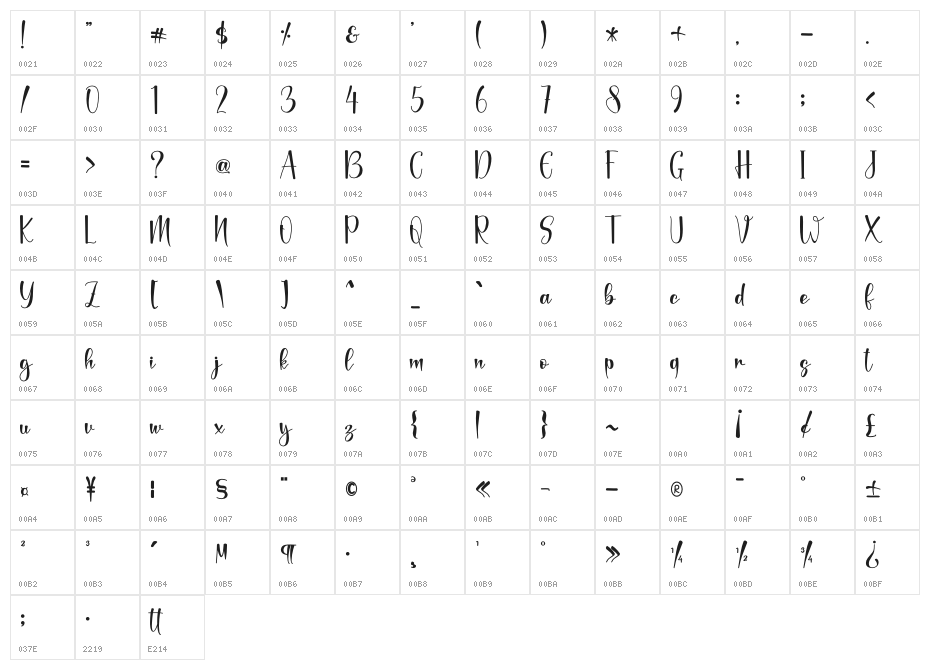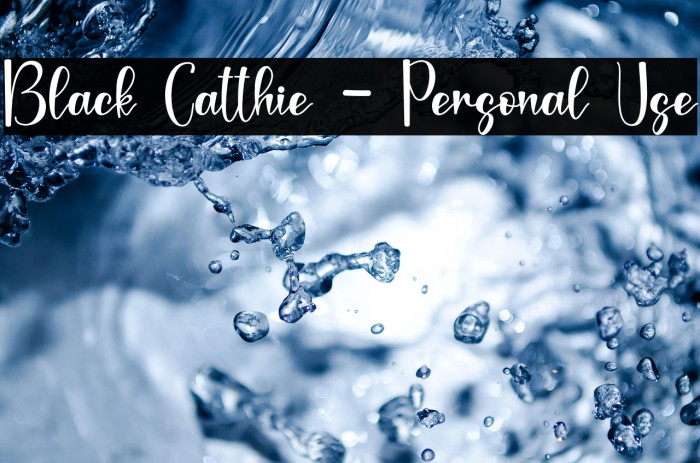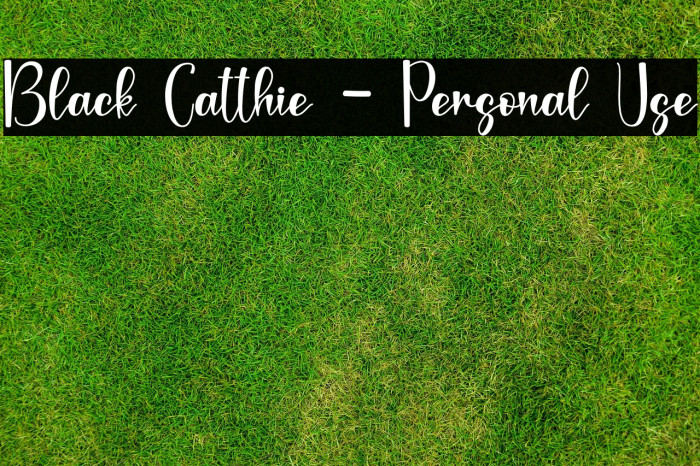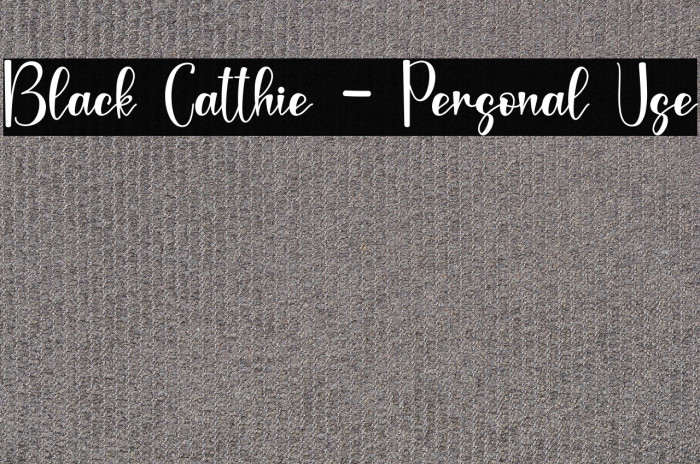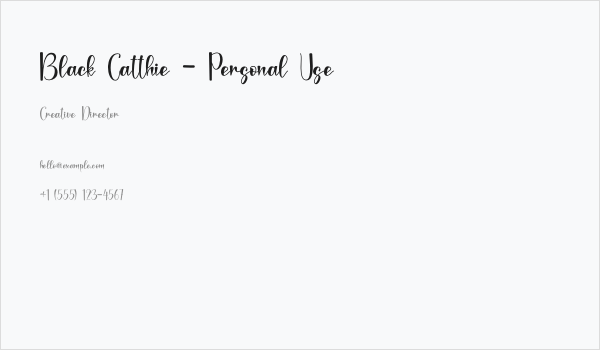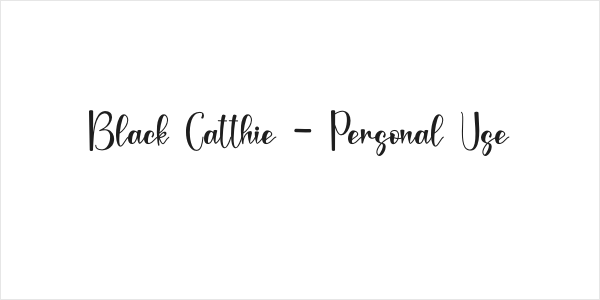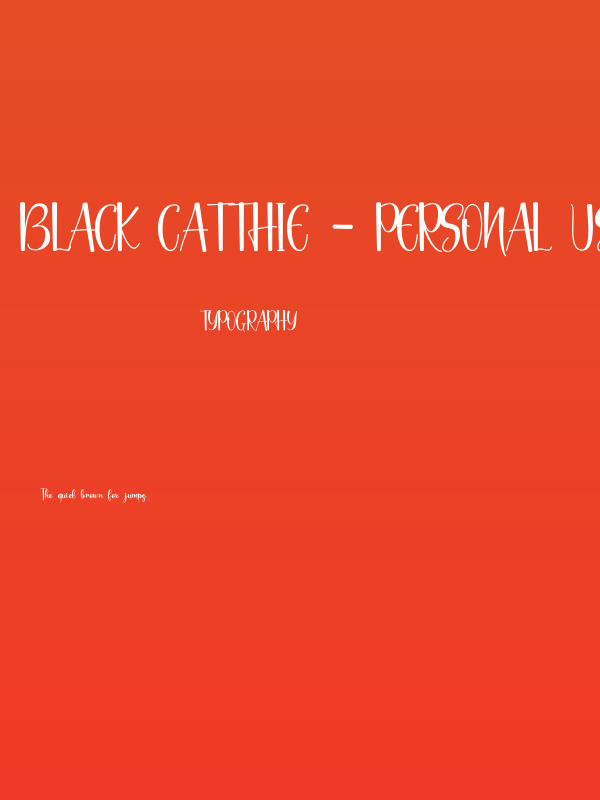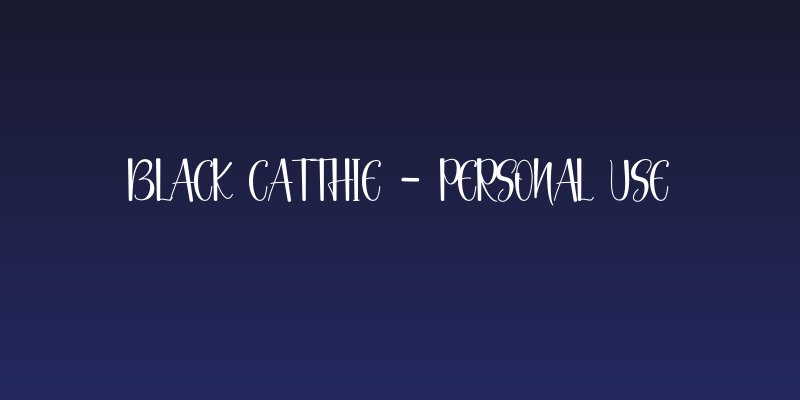
Black Catthie - Personal Use Font
Black Catthie - Personal Use Description
This font features a playful and whimsical style with a handwritten appearance. The uppercase letters are tall and slender, often with exaggerated loops and curves, giving them a dynamic and lively feel. The lowercase letters maintain a consistent flow, with some characters featuring unique, decorative elements that add to the font's charm. The numerals are bold and slightly elongated, ensuring readability while maintaining the font's overall aesthetic. Special characters are creatively designed, complementing the font's playful nature. This font is perfect for projects that require a personal touch or a fun, informal vibe.